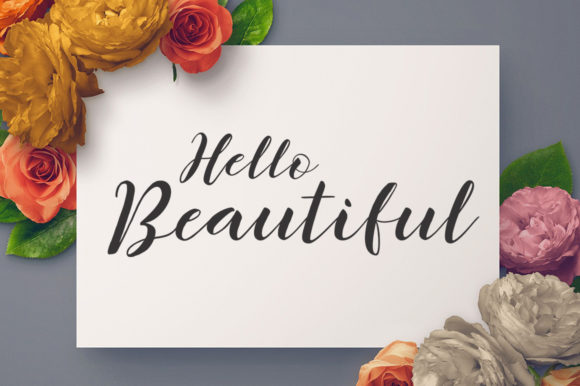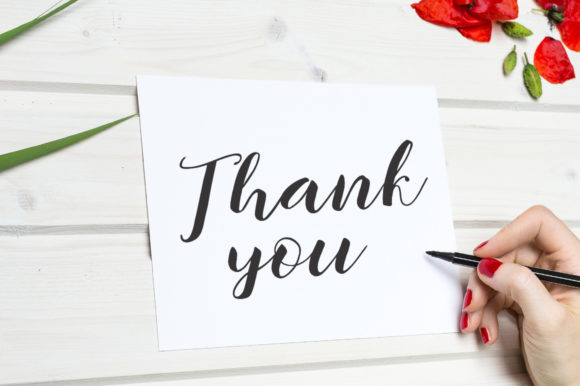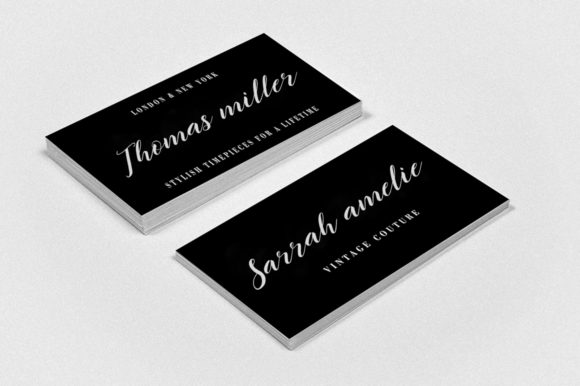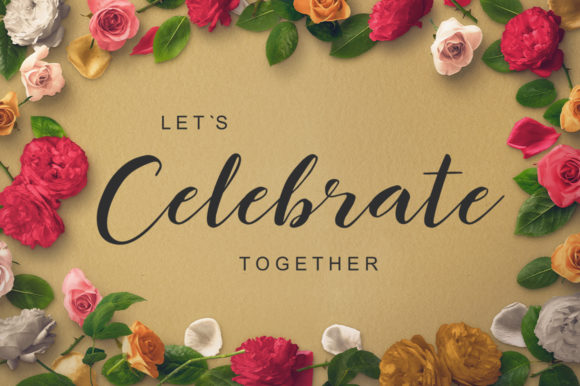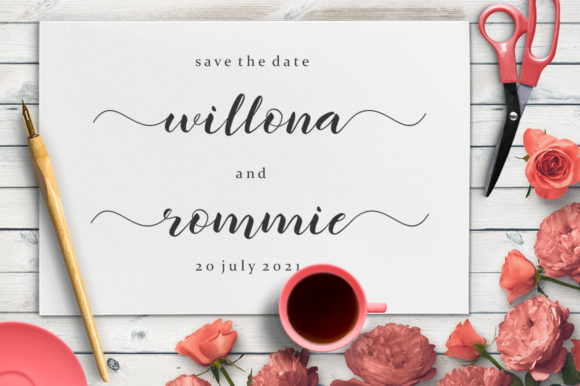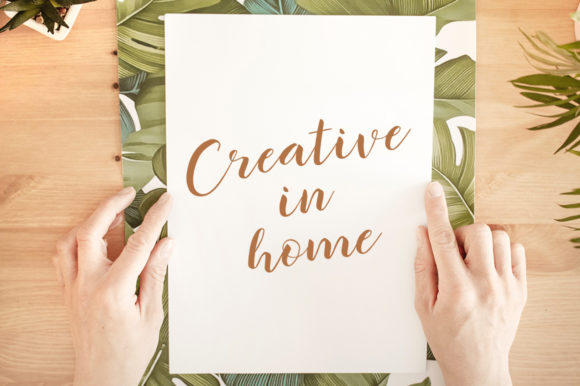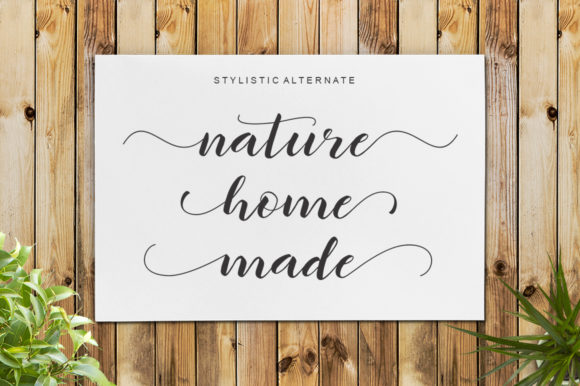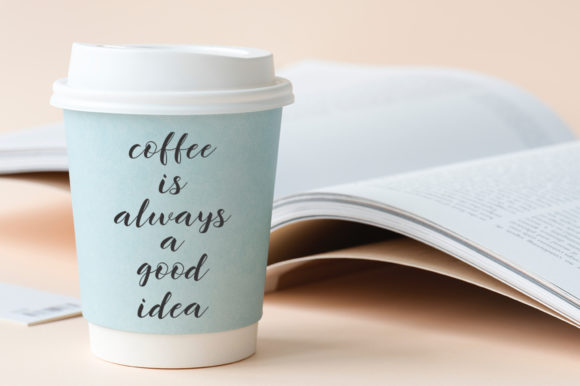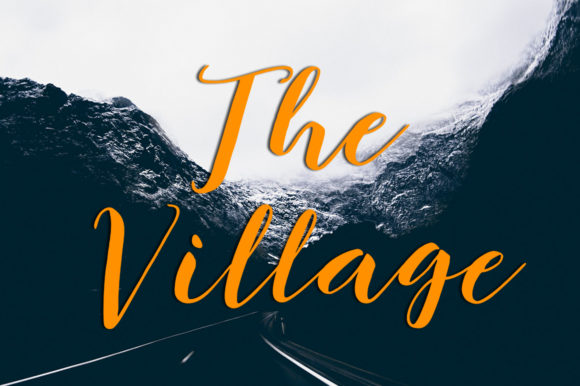
Mishella Font
About Mishella Font
Mishella is a soft and modern calligraphy font. It can be used for various purposes, such as logos, wedding invitation, t-shirt, letterhead, news, posters, badges and more!